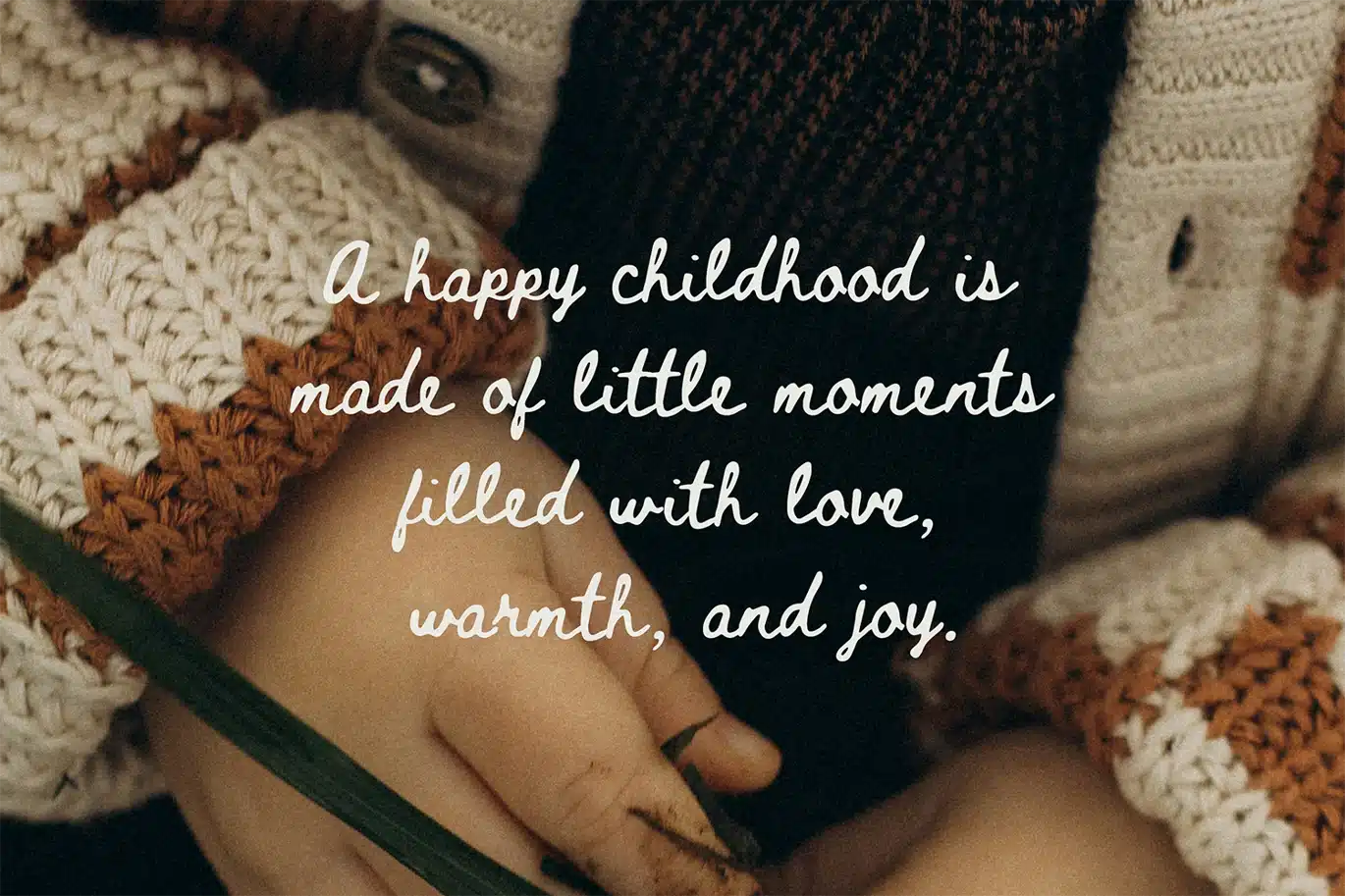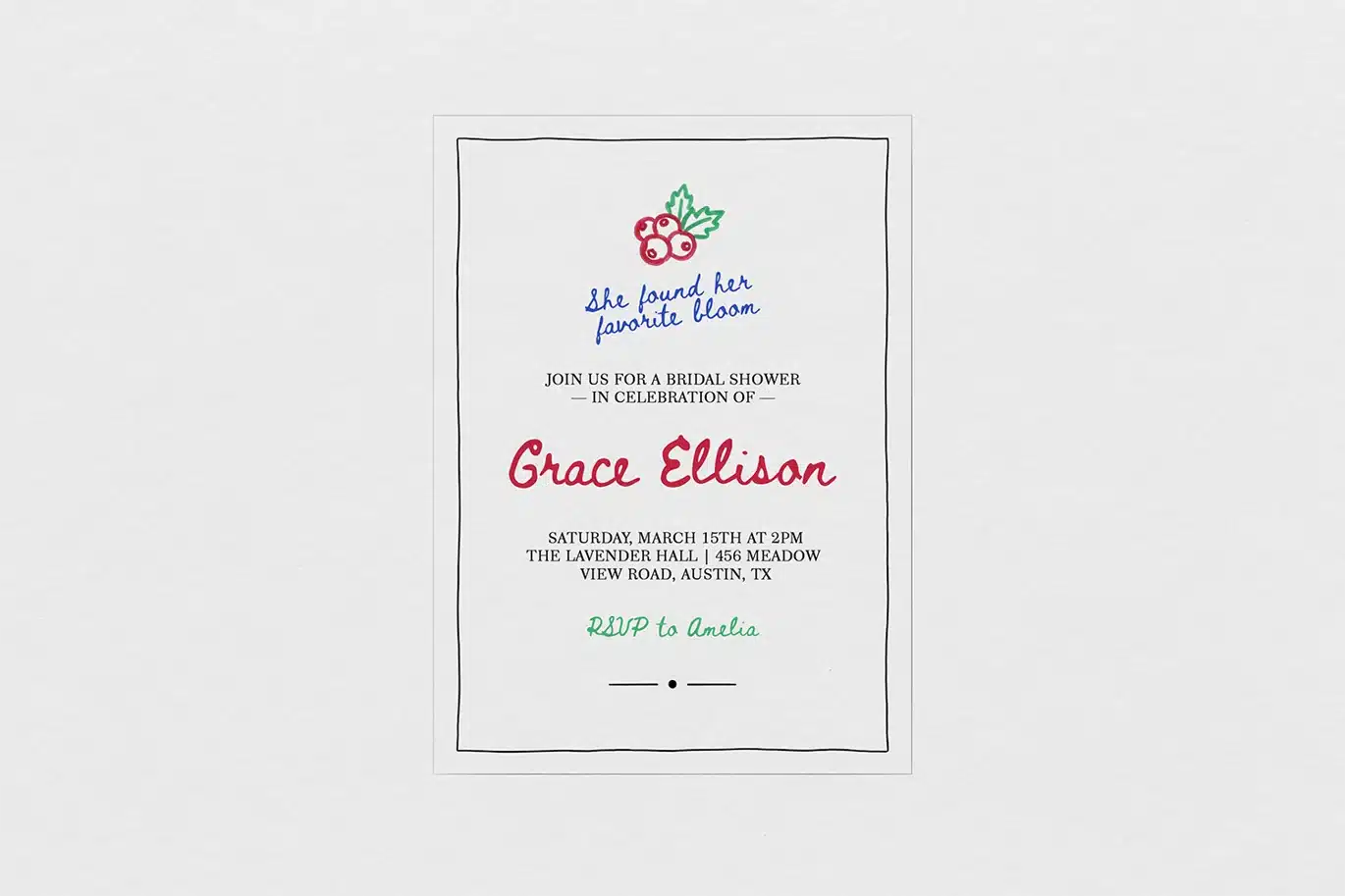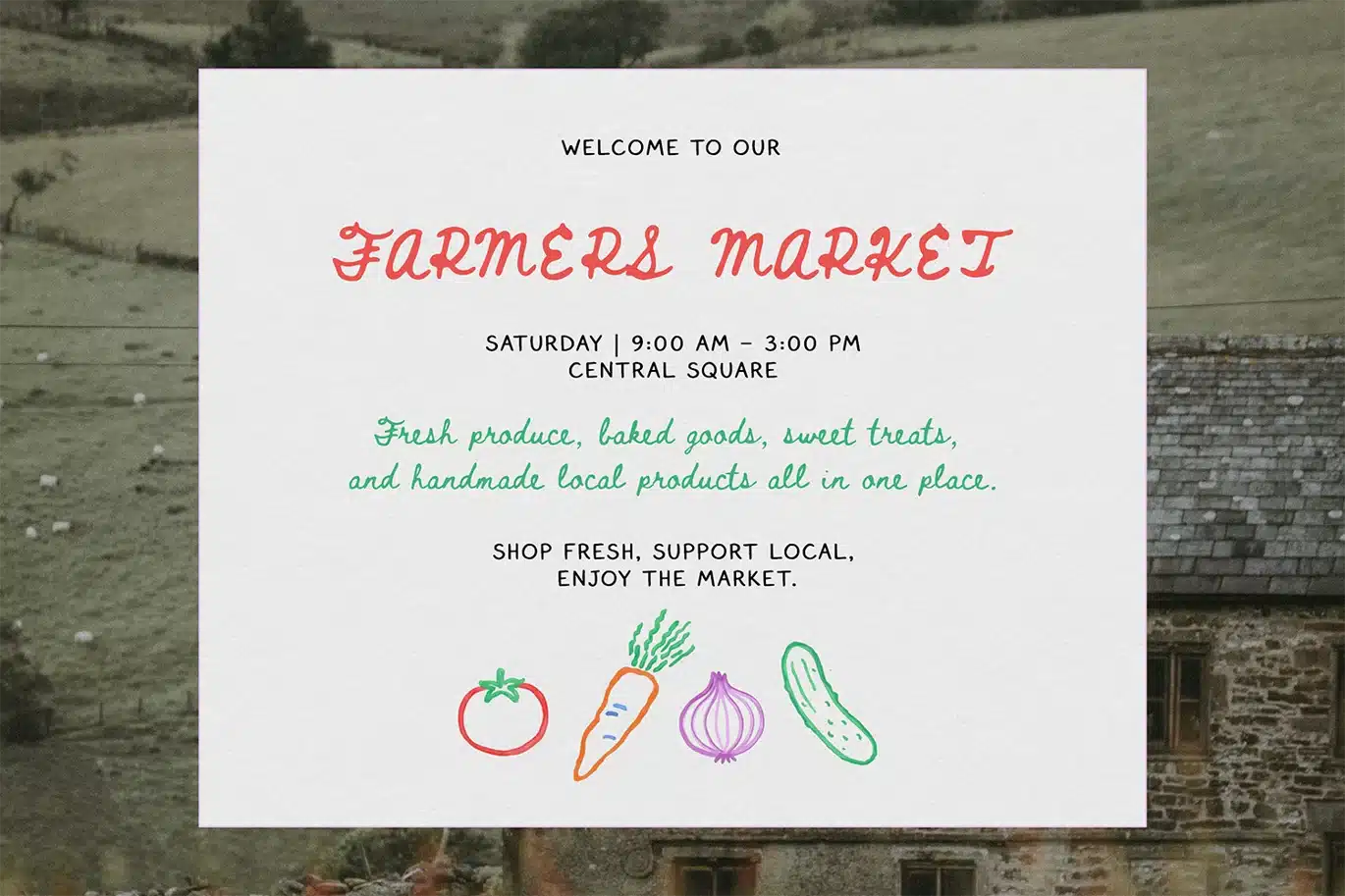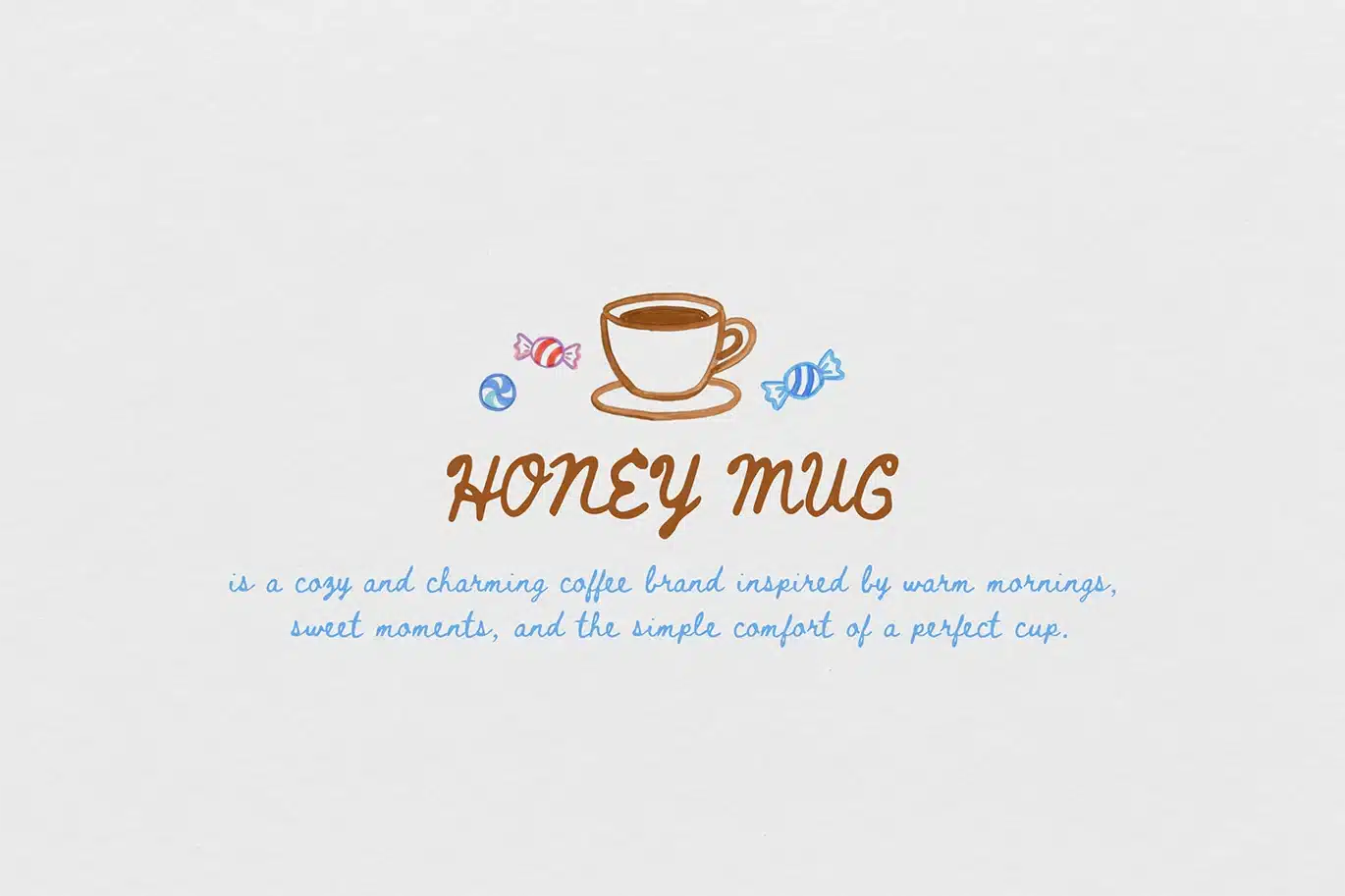
Soft Whim Script Font
Soft Whim is a cute handwritten font with soft curves, playful rhythm, and a sweet handmade feel. This whimsical script font is perfect for branding, logos, invitations, nursery designs, packaging, social media, and feminine creative projects.
Designed with a warm and naturally imperfect flow, Soft Whim brings charm, personality, and an easy handwritten touch to any design. It works beautifully for small business branding, quote prints, stationery, stickers, and cozy lifestyle visuals.